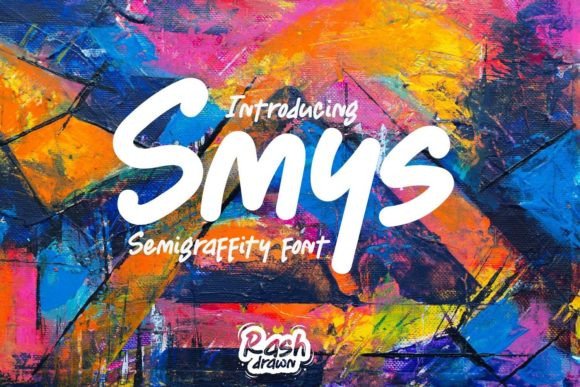
Step into the world of Smys Font, an enchanting script typeface that adds a dash of whimsy and charm to your designs. Created by the talented Rashdrawn, Smys is a handwritten treasure that captivates and delights.
Unleash your creativity and let Smys transform your ideas into captivating designs. Its playful and informal nature makes it the perfect choice for adding a personal touch to your projects. Whether crafting logos, designing posters, or creating social media graphics, Smys leaves an indelible mark of elegance and uniqueness.
With its captivating curves and swashes, Smys possesses an innate ability to capture attention and create lasting impressions. Its free-flowing style lends itself perfectly to projects that demand a touch of flair and individuality. Whether you're an experienced designer or just starting, Smys empowers you to make a statement that's both memorable and impactful.
Beyond its aesthetic appeal, Smys is meticulously crafted to ensure optimal readability and functionality. The font's letterforms are carefully designed to maintain clarity and legibility, ensuring your messages are communicated with precision and impact. Its versatility extends to a wide range of applications, from branding and marketing materials to web design and social media posts.
Embark on a typographic adventure with Smys Font, a font crafted to inspire and enchant. Let its whimsical charm infuse your designs with a sense of joy and playfulness. Whether you're a seasoned professional or a creative enthusiast, Smys is your perfect companion in creating designs that leave a lasting impression.